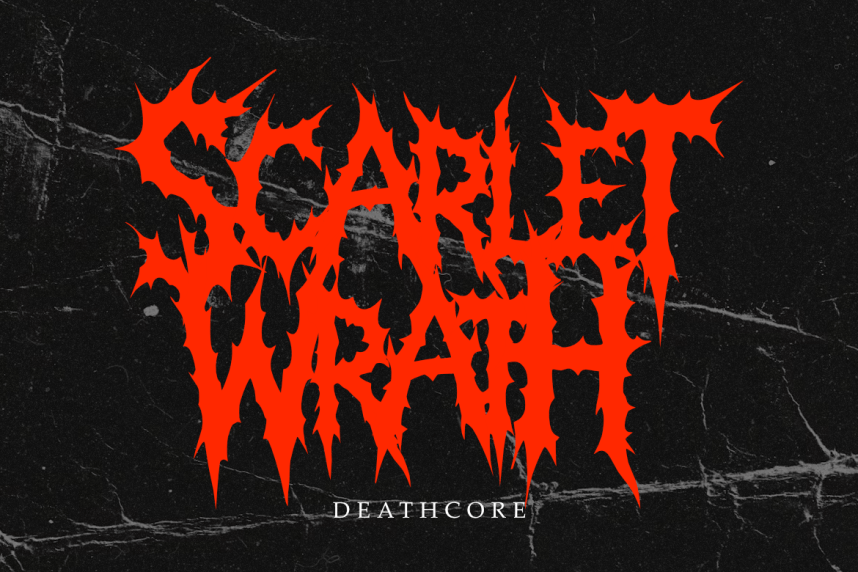
Ruination Font is an extreme Death Metal display font built with razor-sharp spikes, distorted organic forms, and aggressive ornamental details. Its chaotic yet highly recognizable letterforms create a brutal visual identity inspired by underground metal culture, horror aesthetics, dark artwork, and extreme music.
This font is created for dark, aggressive, extreme, and heavy visual designs. It is suitable for death metal artwork, band logos, album covers, posters, merchandise, apparel, branding, and other creative projects.